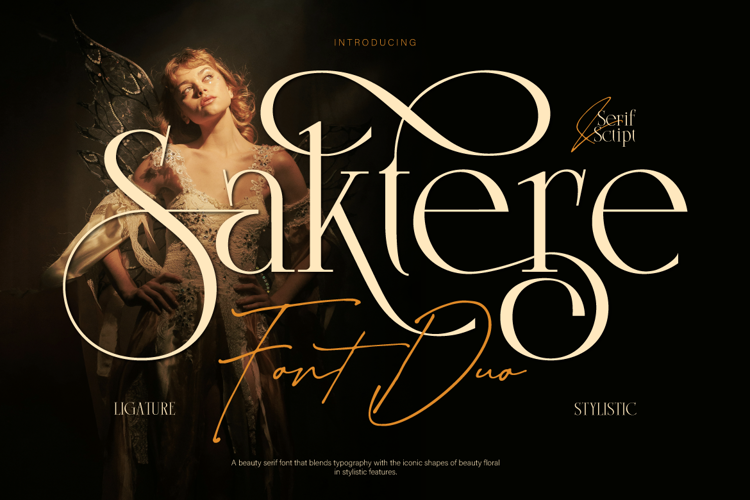
Saktere Font
- Luxury Brand Identity & Logo Design
- Bridal Makeup, Wedding Stationery & Invitations
- Fashion Magazine Layouts & Editorial Covers
- Perfume Bottles, Cosmetics & Product Packaging
- Romantic Quotes, Social Media & Moodboards